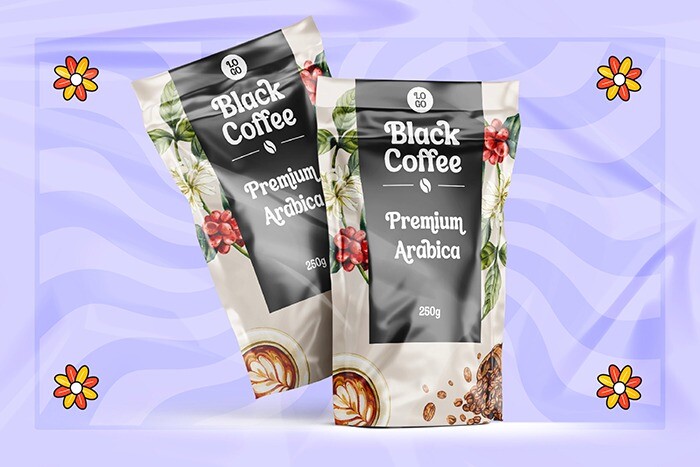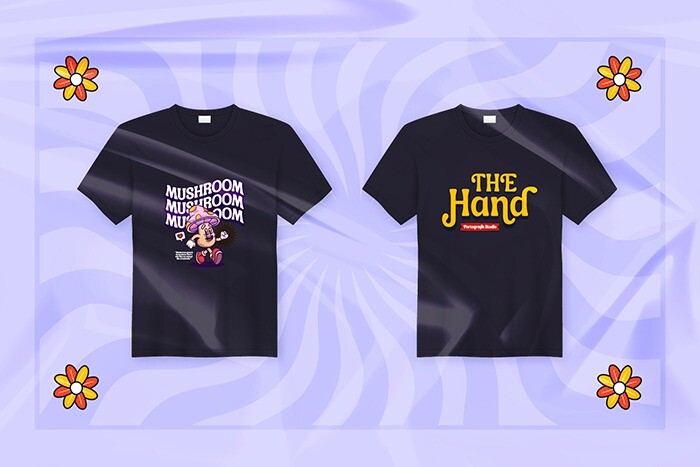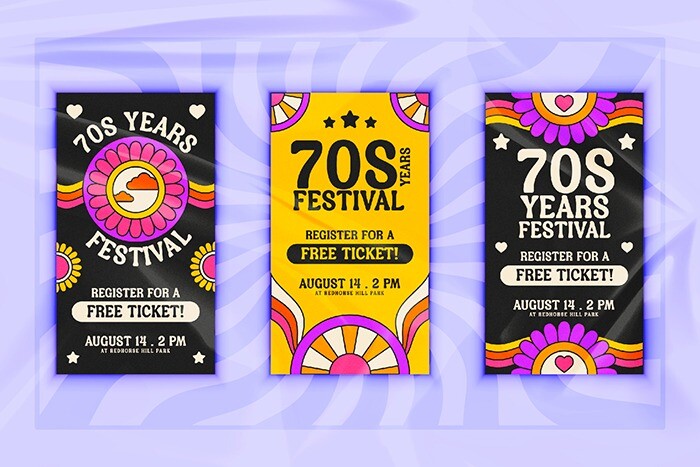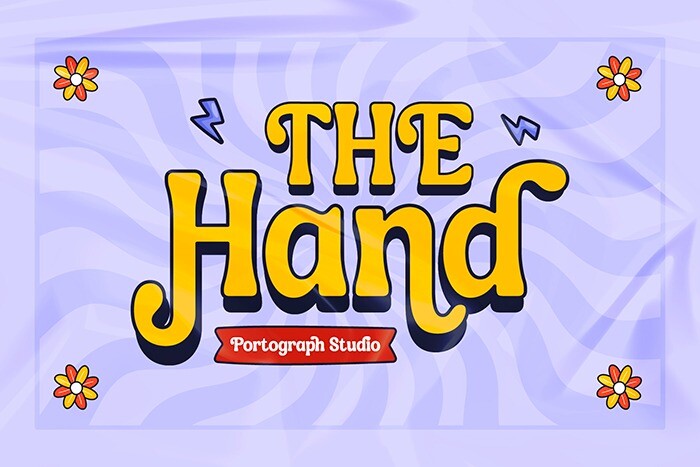
The Hand Font
The Hand Font is a display font family with nostalgic motives. The font is created in a groovy retro style. For branding projects, logos, wedding designs, social media posts, advertisements, product packaging, product designs, labels, photography, watermarks, invitations, stationery, and anything requiring handwritten taste, The Hand is perfect.